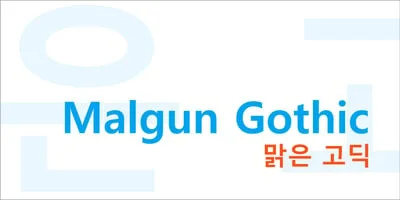
Malgun Gothic Font
Malgun Gothic Font is perfect for Korean corporate communications, Hangul educational materials, K-pop merchandise design, Korean technology branding, multilingual user interfaces, and cross-cultural marketing campaigns. Its clean character makes it ideal for Korean businesses, language learning platforms, Korean cultural centers, tech companies targeting Korean markets, and any application requiring clear Korean typography that conveys modern professionalism, cultural authenticity, and excellent Hangul readability.
Malgun Gothic Font is exciting because it represents the evolution of Korean typography design through meticulously crafted Hangul characters that achieve perfect balance between traditional Korean aesthetic principles and contemporary digital functionality. Its optimized letterforms and harmonious proportions ensure exceptional readability for Korean text while maintaining cultural authenticity, making it perfect for organizations seeking to communicate effectively with Korean-speaking audiences. The font's clear design eliminates visual confusion and promotes effortless Korean reading experiences.
Malgun Gothic Font family includes systematically designed weight variations typically featuring Regular, Bold, and Light options with consistent Hangul character integrity across all weights. The family often incorporates complete Korean character sets, optimized spacing for mixed Korean-English text, and enhanced legibility features designed for digital Korean applications, providing designers with comprehensive tools for creating professional Korean typographic solutions.
When selecting Korean typography solutions, Malgun Gothic Font represents an exceptional choice for Hangul design projects. This distinguished typeface brings instant Korean market credibility to any application, making it invaluable for companies entering Korean markets, educational institutions teaching Korean, and international brands requiring authentic Korean typography. Whether you're developing Korean mobile applications, creating Hangul educational materials, or designing Korean-focused marketing campaigns, Malgun Gothic Font provides the cultural authenticity and technical excellence essential for successful Korean communication in today's globally connected Korean marketplace.